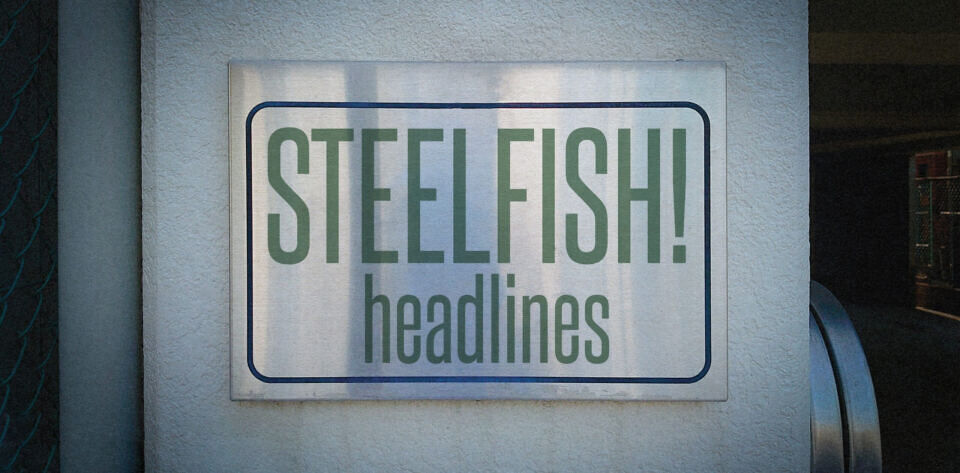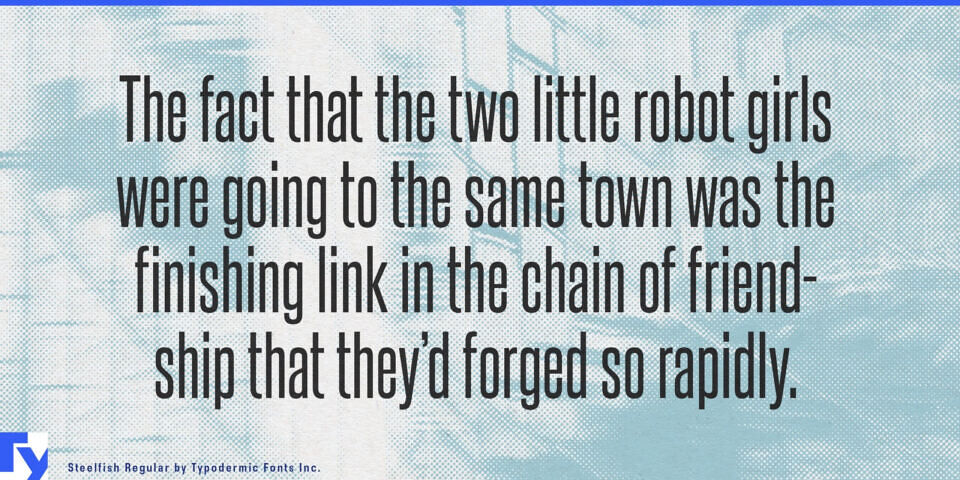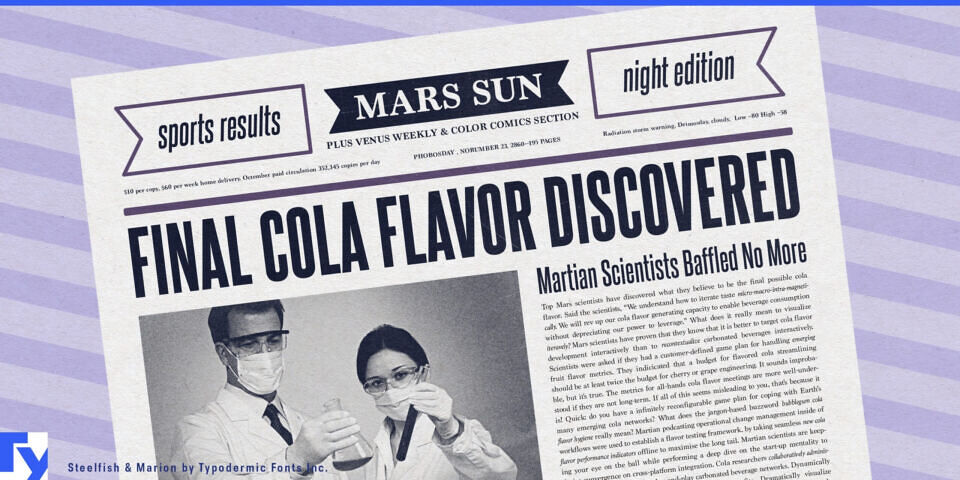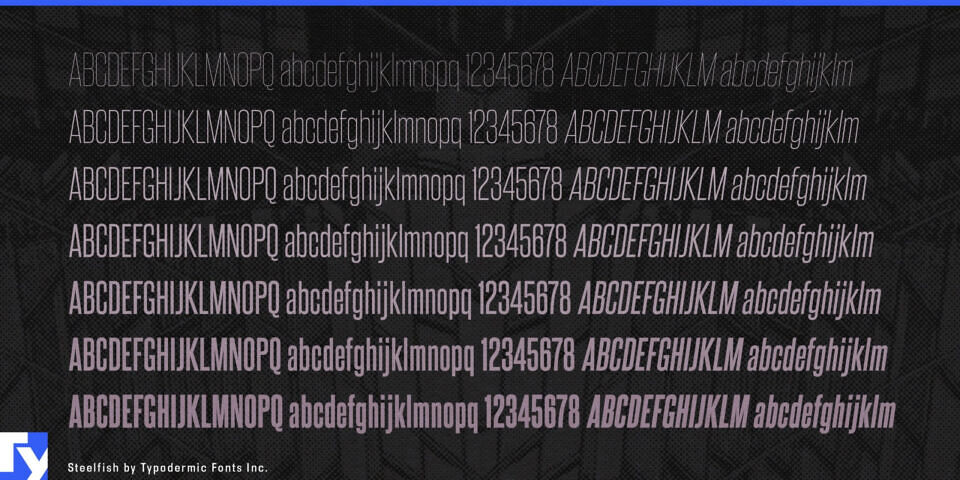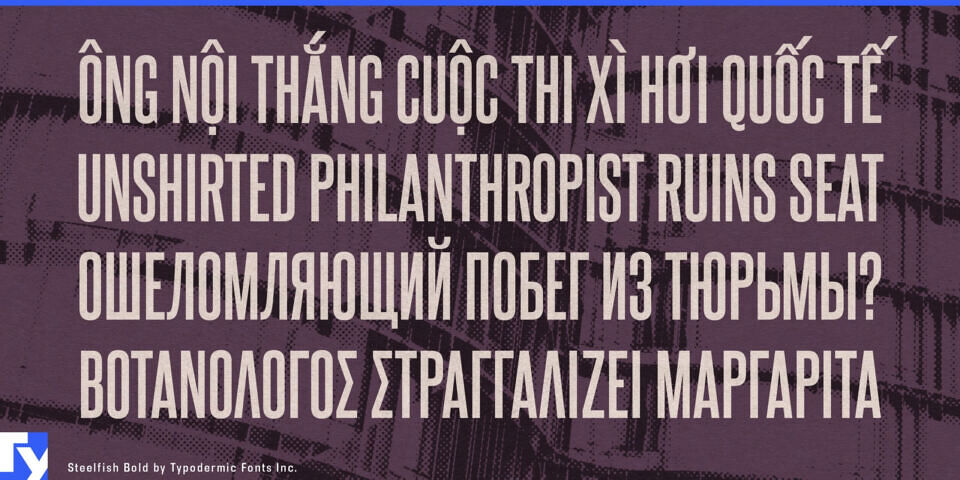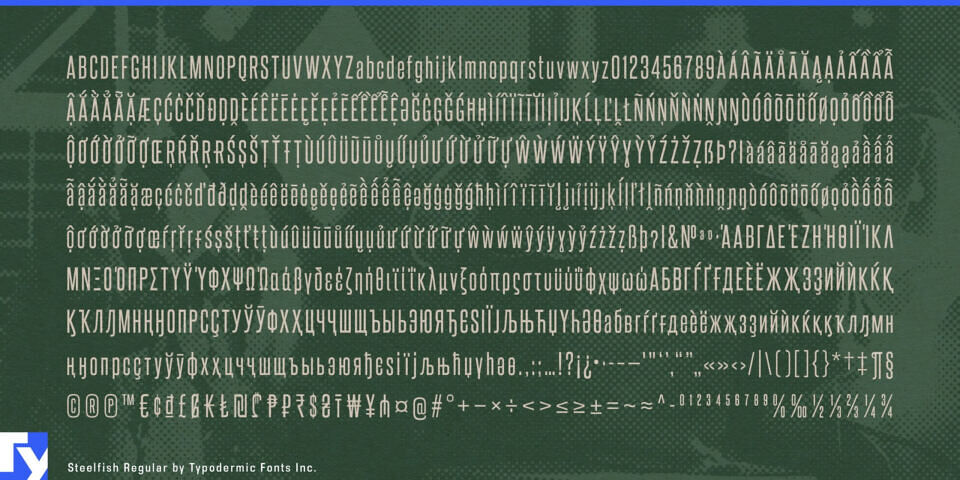
Steelfish is a versatile typeface that blends the industrial strength of early 20th-century headlines with the precision of modern typography. This condensed powerhouse is an alloy of various headline fonts, creating a unique metal that’s stronger than the sum of its parts. It stands as a versatile bridge between eras, fitting in with vintage-inspired layouts and cutting-edge designs.
With seven weights and their oblique counterparts, Steelfish adapts to your design needs with the flexibility of heated metal. Its four variations—Rounded, Hammer, Steeled, and Unleaded—provide a specialized tool for any typographic challenge. This typeface also supports an extensive range of Latin-based European, Vietnamese, Greek, and Cyrillic writing systems.